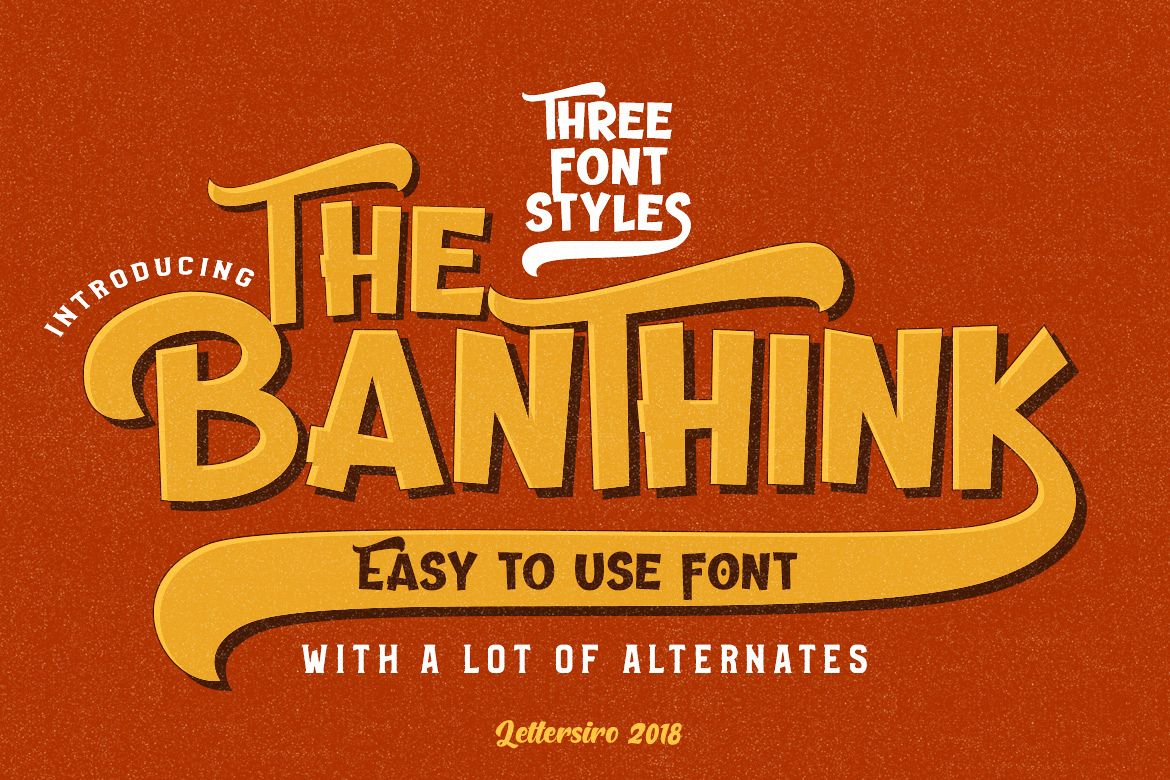
The Banthink - Retro Font
We just launch our newest product. We made a playful font, so cool and modern-vintage looks , called Banthink Font.
This font is great for logo, poster, clothing, branding, party
invitation, and many many other cool design projects. Banthink comes
with a lot of alternate character, and also come with 3 font styles.
Banthink Font:
• Add more style to each font with OpenType Features - stylistic alternates, lowercase final form, ligatures, stylistic sets.